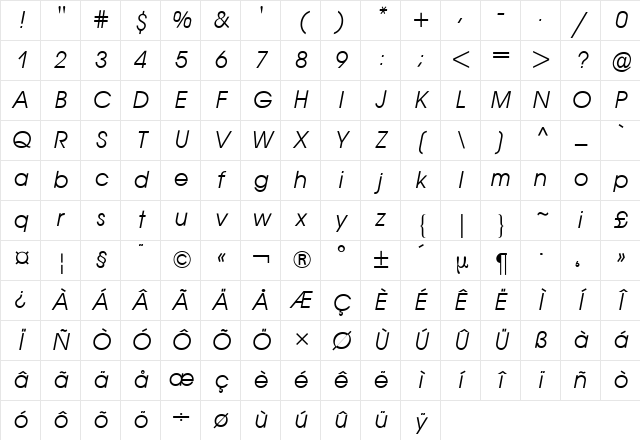
Avant Garde BQ Roman Italic
Style: Roman Italic
Avant Garde BQ Family
Avant Garde BQ Roman Italic
Design Context for Avant Garde BQ
Avant Garde BQ is a composed and adaptable typeface that performs quietly and consistently across a wide range of design contexts. The slanted form adds forward momentum and visual energy.
Pro Tip: Use Avant Garde BQ for emphasis, pull quotes, and subheadings where its slanted energy can add rhythm to the layout.